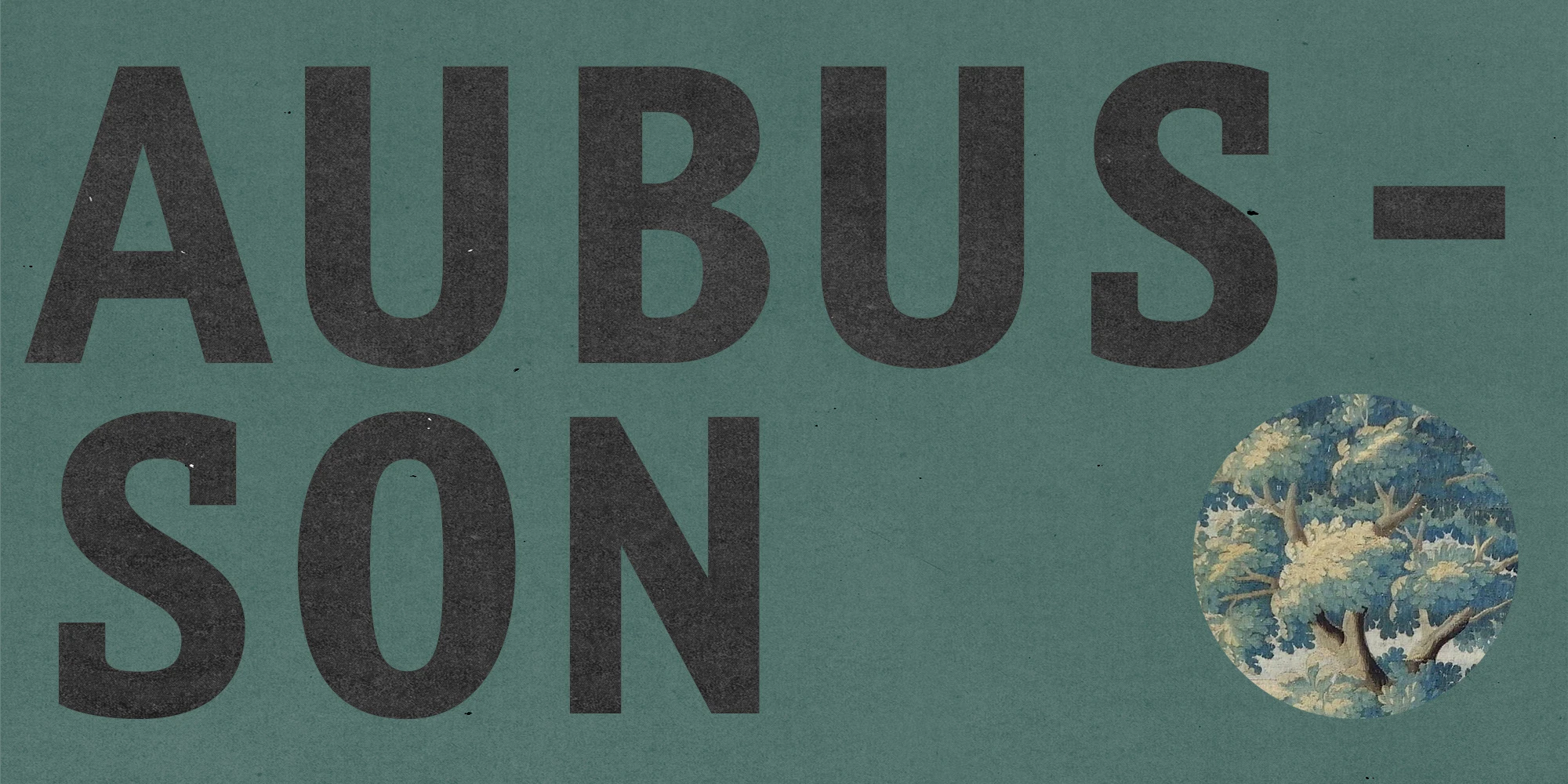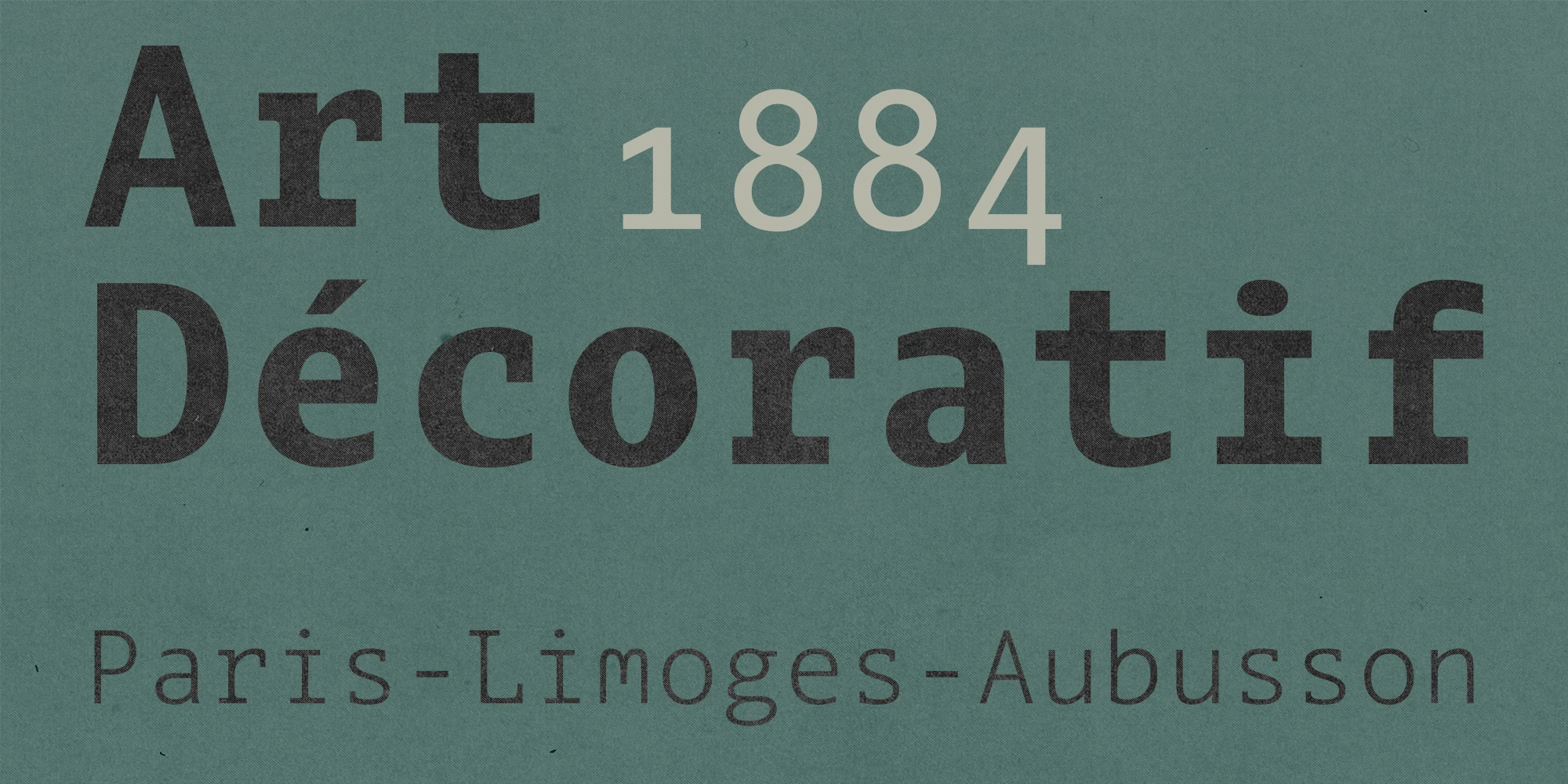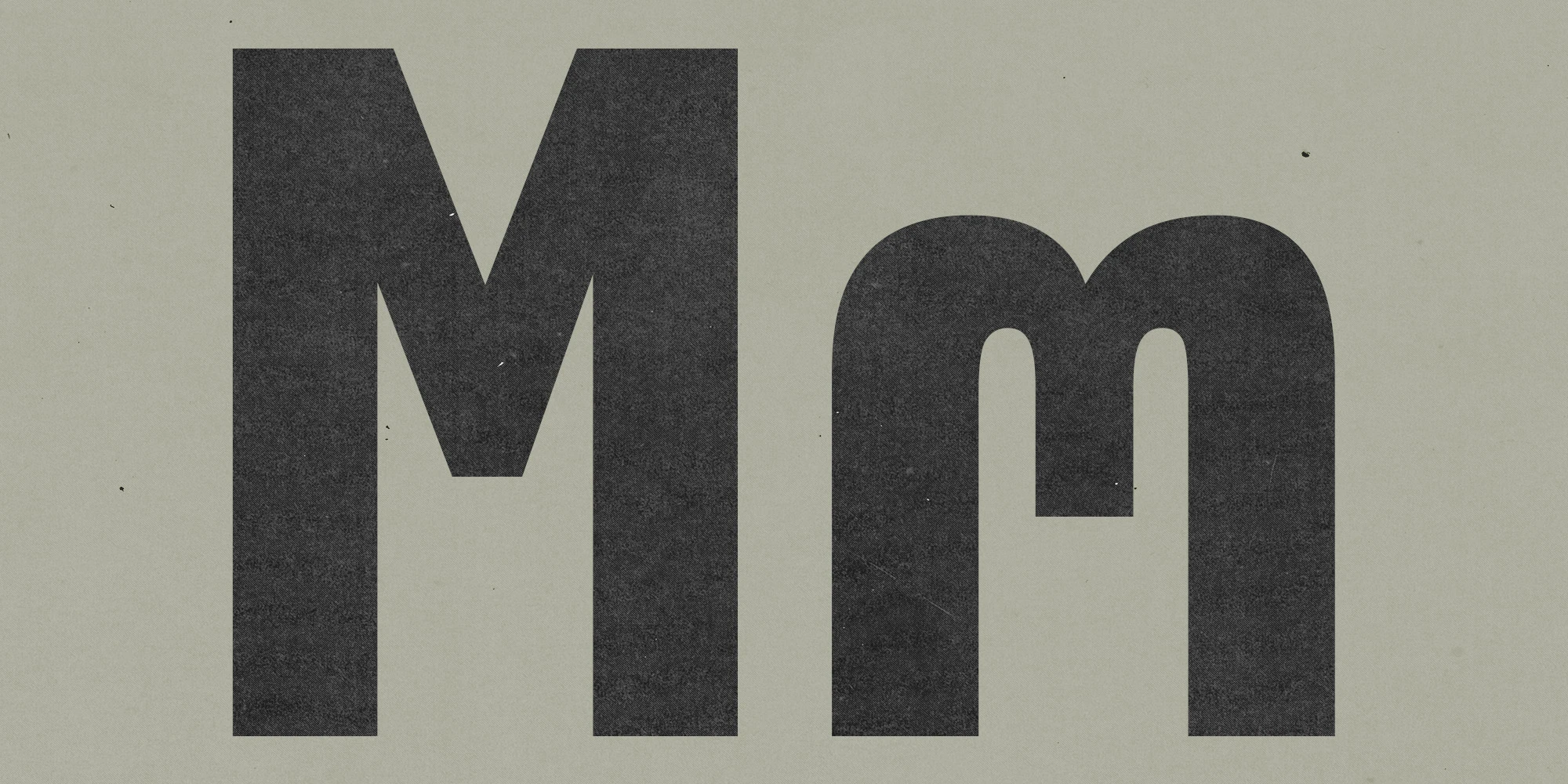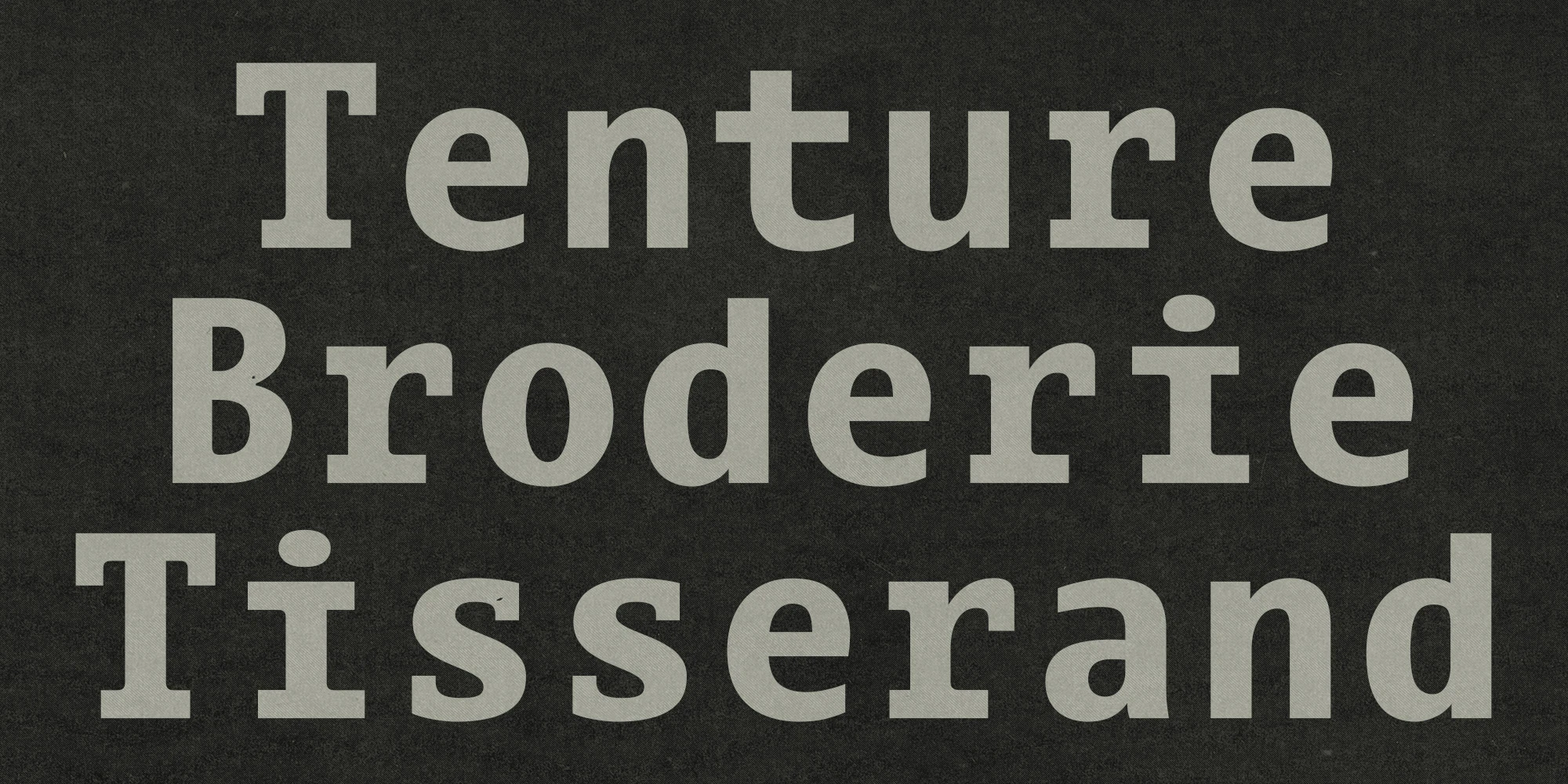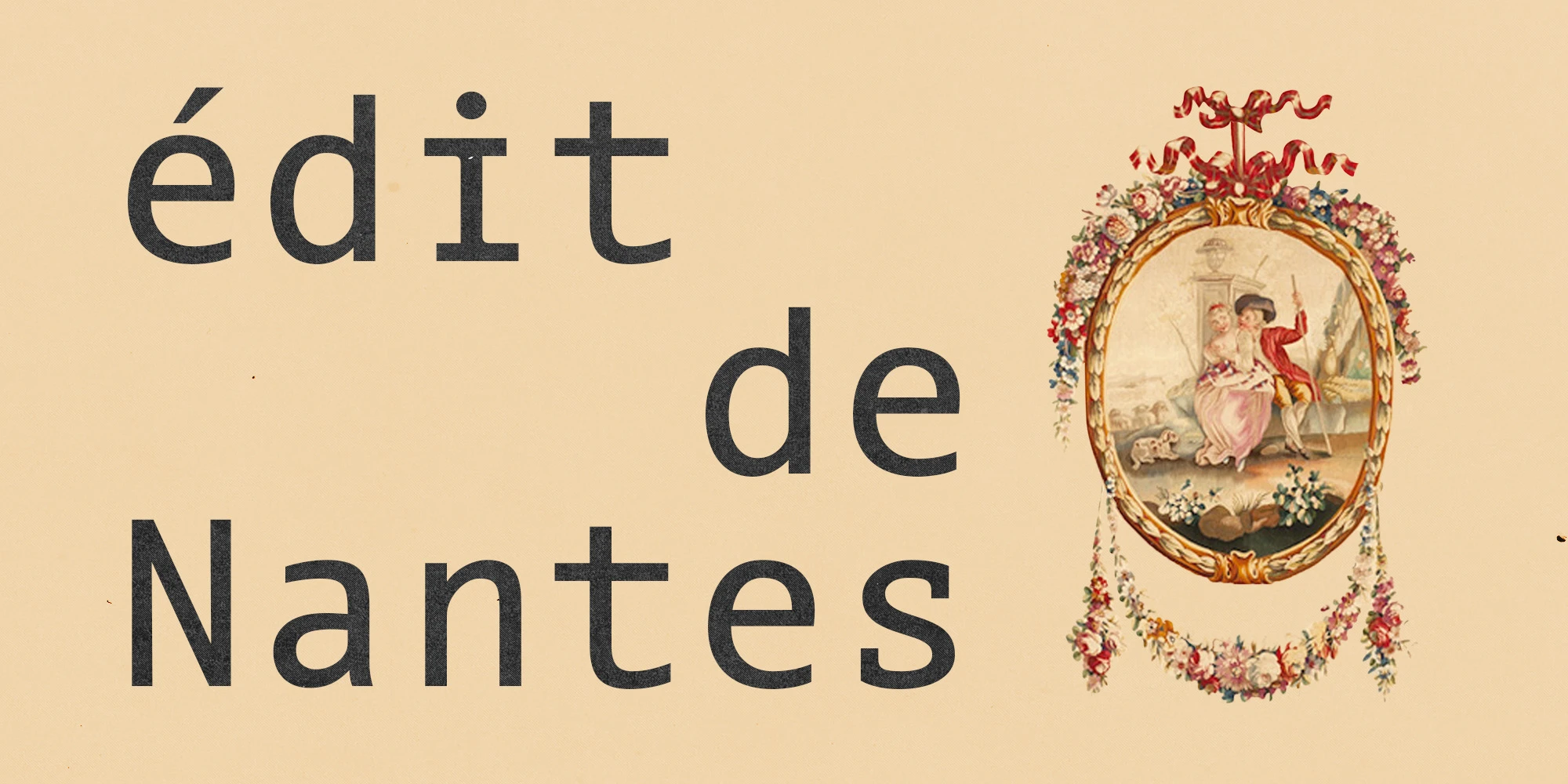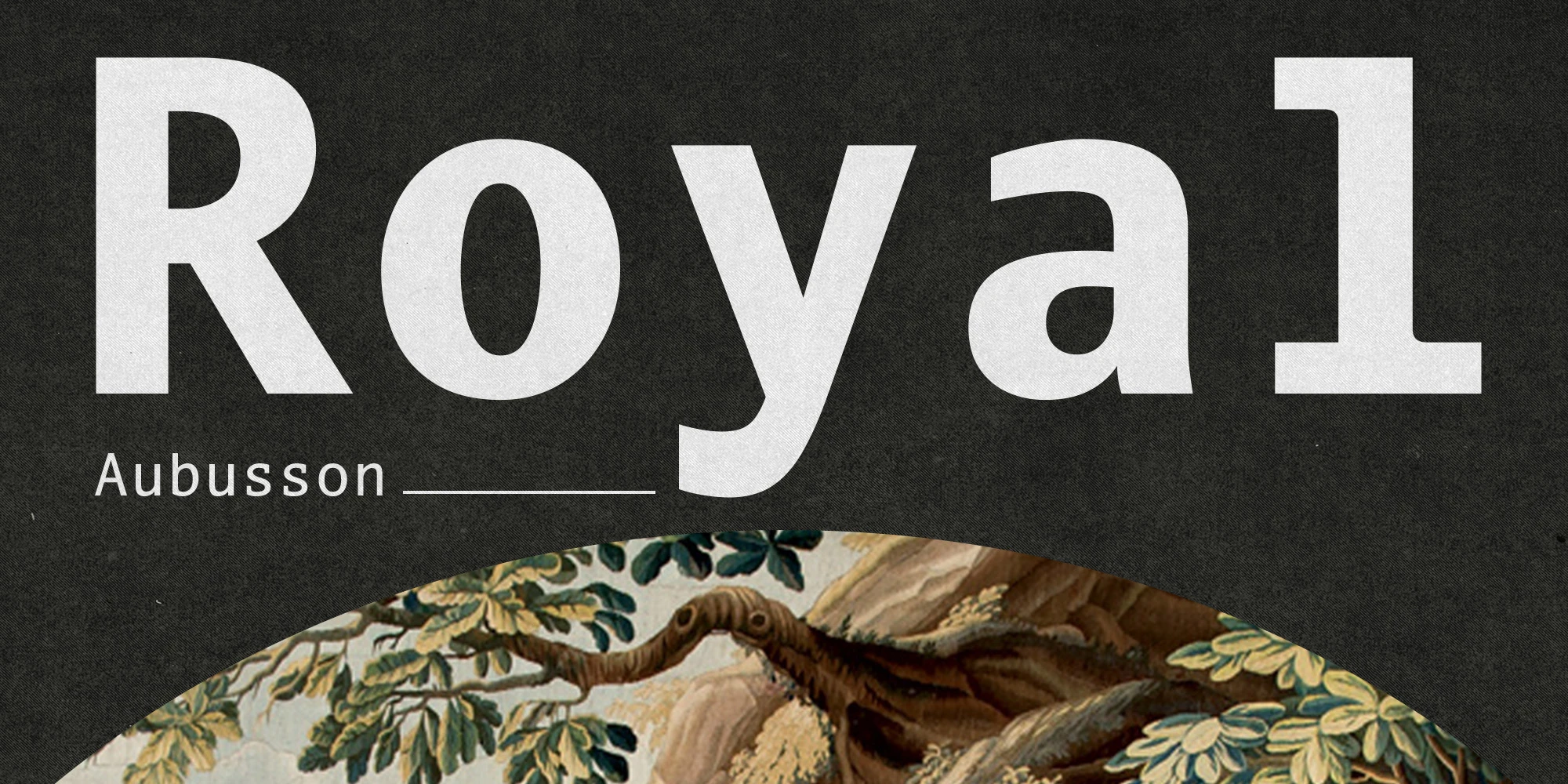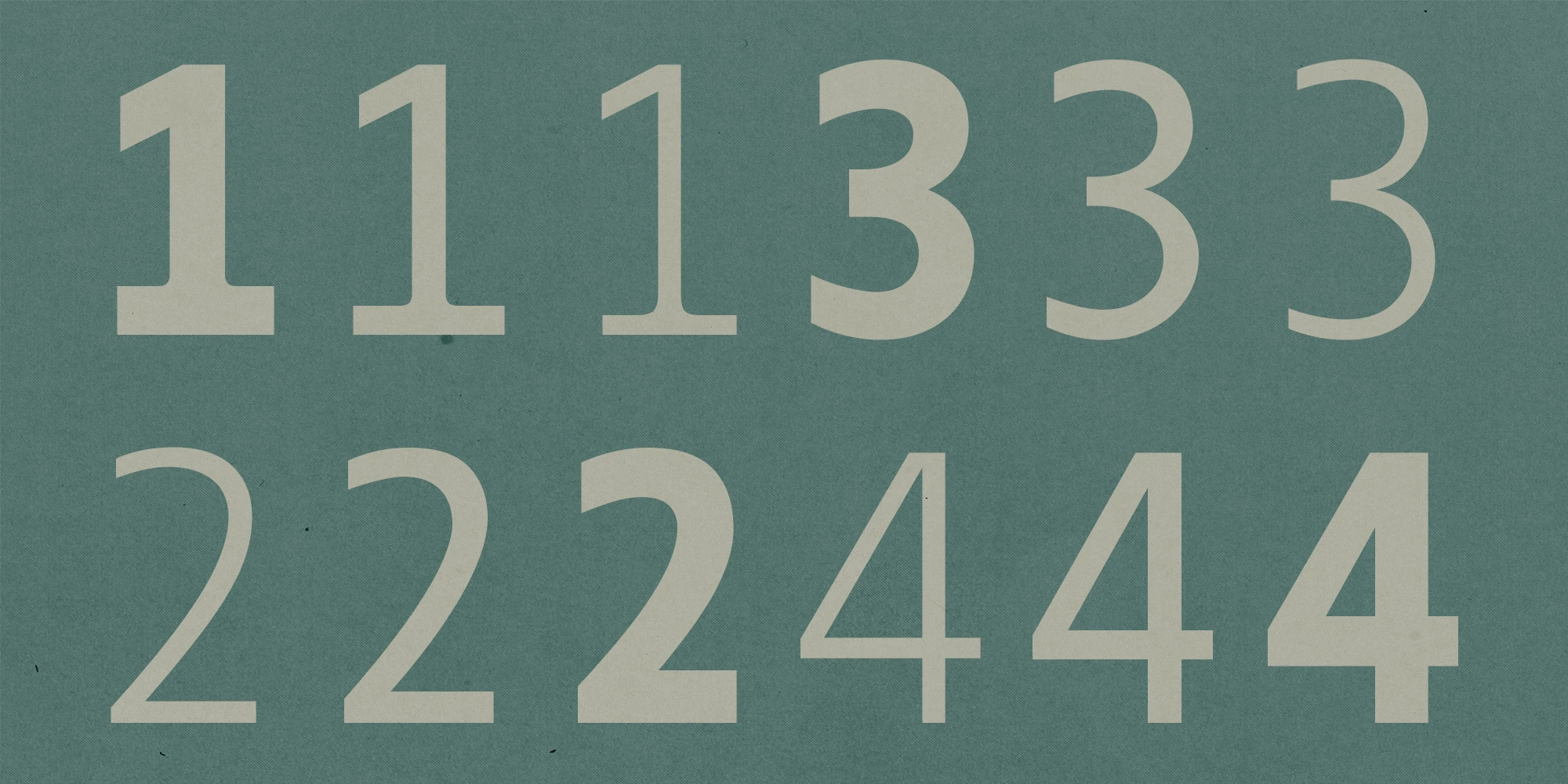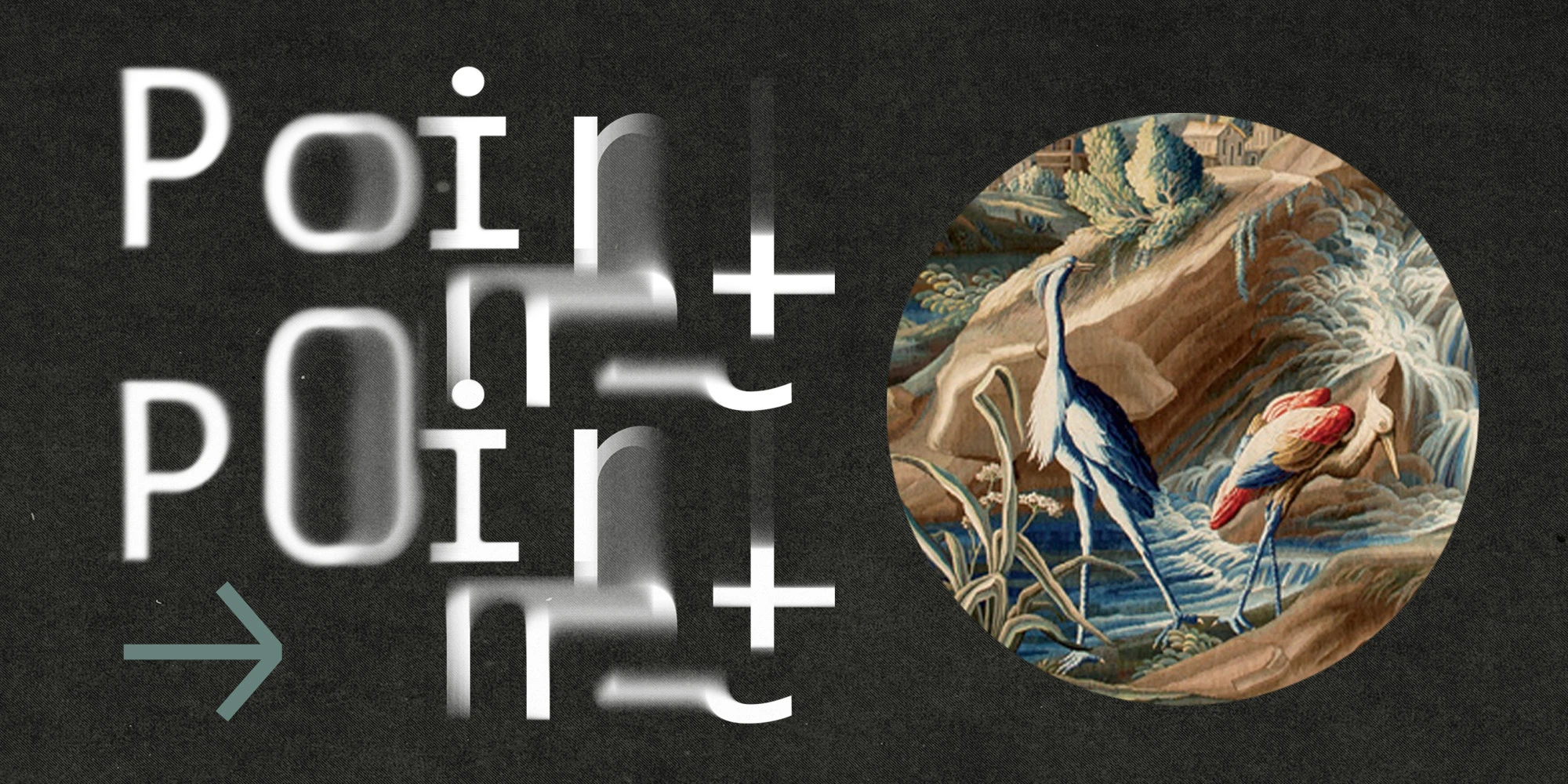
Aubusson Font Family
Aubusson is a monospaced humanist sans serif inspired by the iconic tapestries of Aubusson, France, capturing grid-like patterns of interwoven threads with warm, calligraphy-inspired forms that reflect traditional weaving. Created by Franck Jalleau and refined by Black[Foundry], it balances precision with personality. From display headlines to small paragraphs, Aubusson shines gracefully in various contexts, making it a versatile choice for designers seeking functional elegance.
Franck Jalleau
Features
OpenType Features
• Common Ligatures
• Fractions
• Lining Numerals
• Old Style Numerals
• Ordinal Numerals
• Small Capitals
• Small Capitals for Capitals
• Stylistic Alternates
• Stylistic Sets
• Subscript
• Superscript